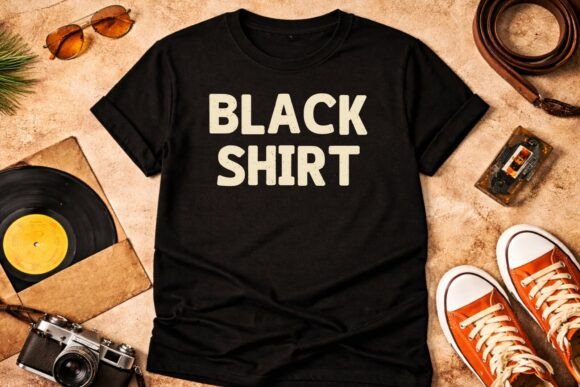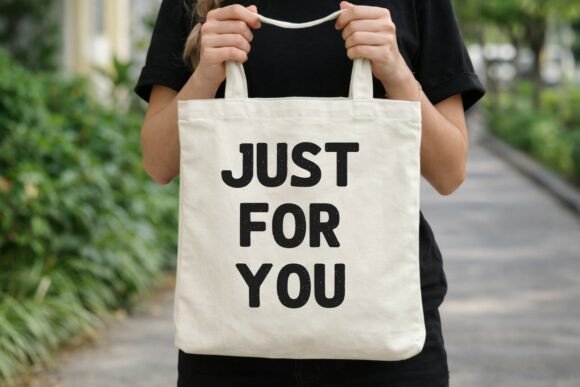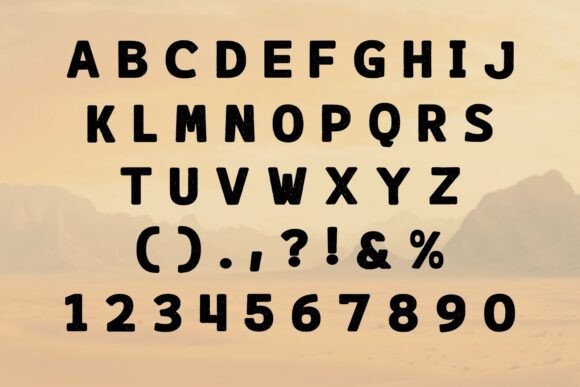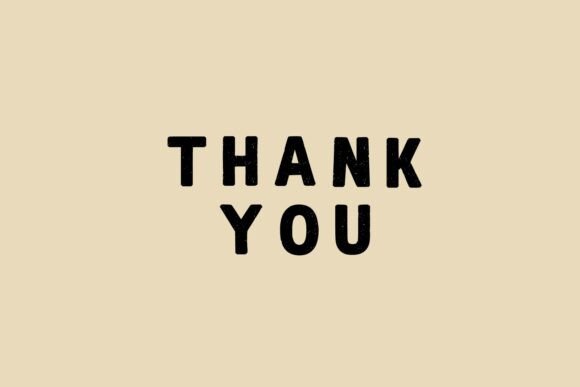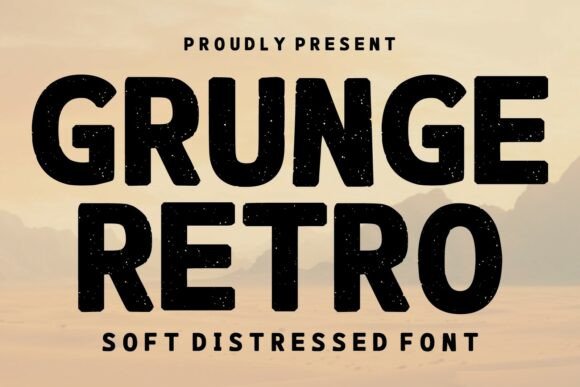
Grunge Retro Font: Unleash the Power of Vintage Nostalgia in Your Designs
Are you looking for a font that can add a touch of nostalgia and industrial strength to your designs? Look no further than the Grunge Retro font, a bold, soft-distressed display face that is perfect for creating high-impact communication. In this article, we’ll explore the features and benefits of the Grunge Retro font, and how it can elevate your designs to the next level.
The Inspiration Behind Grunge Retro
The Grunge Retro font is inspired by the raw, nostalgic energy of the past. It takes a classic, bold sans-serif structure and applies a subtle, gritty texture that mimics vintage print press results or weathered signage. This texture gives the font a worn, lived-in appearance that is perfect for designs that require a sense of history and industrial strength.
Key Features of Grunge Retro
The Grunge Retro font has several key features that make it an ideal choice for designers. Some of its key features include:
• Bold and Soft-Distressed: The Grunge Retro font is a bold, soft-distressed display face that is designed to make a statement. Its subtle worn texture gives it a vintage yet clean appearance that is perfect for high-impact communication.
• Subtle Worn Texture: The font’s subtle worn texture mimics vintage print press results or weathered signage, giving it a unique and authentic look.
• Versatile: The Grunge Retro font is versatile and can be used for a wide range of design projects, from cinematic posters to rugged outdoor branding and retro-themed apparel.
Use Cases for Grunge Retro
The Grunge Retro font is perfect for a wide range of design projects, including:
• Cinematic Posters: The font’s bold, distressed texture makes it perfect for cinematic posters that require a high-impact look.
• Rugged Outdoor Branding: The Grunge Retro font is ideal for rugged outdoor branding, such as logos and signage for outdoor gear companies or adventure travel logs.
• Retro-Themed Apparel: The font’s vintage look makes it perfect for retro-themed apparel, such as t-shirts and hoodies.
• Craft Brewery Identities: The Grunge Retro font is also perfect for craft brewery identities, adding a touch of industrial strength and nostalgia to logos and branding.
Tips for Using Grunge Retro
Here are some tips for using the Grunge Retro font in your designs:
• Layer it Over Landscape Photography: The Grunge Retro font works exceptionally well when layered over landscape photography or textured paper backgrounds.
• Use it for Headlines: The font commands authority in headlines, making it perfect for creating high-impact communication.
• Experiment with Colors: The Grunge Retro font looks great in a range of colors, so don’t be afraid to experiment and find the perfect color scheme for your design.
The Grunge Retro font is a powerful, soft-distressed display face that is perfect for designers looking to add a touch of nostalgia and industrial strength to their designs. With its bold, subtle worn texture and versatile design, it’s ideal for a wide range of design projects, from cinematic posters to rugged outdoor branding and retro-themed apparel. Whether you’re a designer, craft brewer, or outdoor enthusiast, the Grunge Retro font is a great choice for any project that requires a high-impact look.